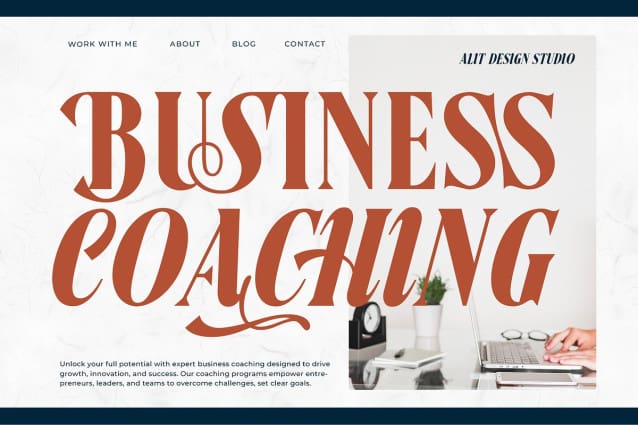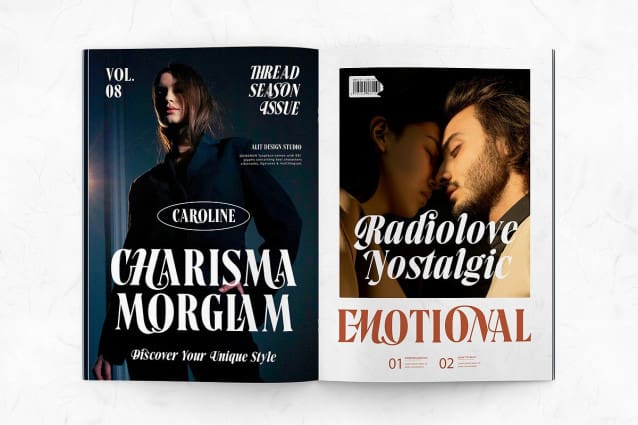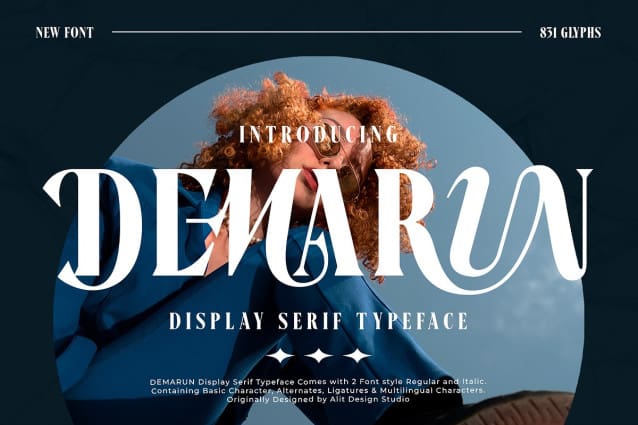
Demarun Font
Demarun Font is a striking display serif typeface designed to make a bold statement. This font boasts a luxurious and elegant appearance, perfect for branding, editorial design, and sophisticated advertising campaigns. With 831 glyphs, Demarun supports a wide range of multilingual characters, alternates, and ligatures, offering versatility and customization for diverse design projects.